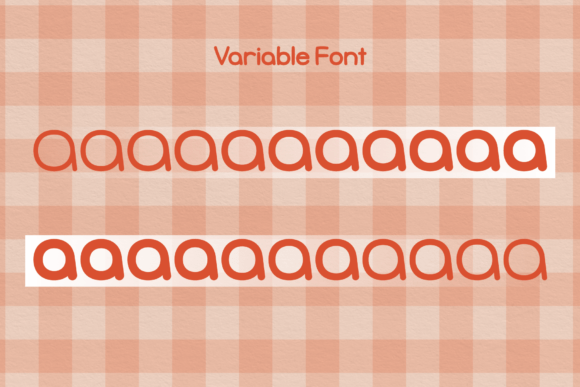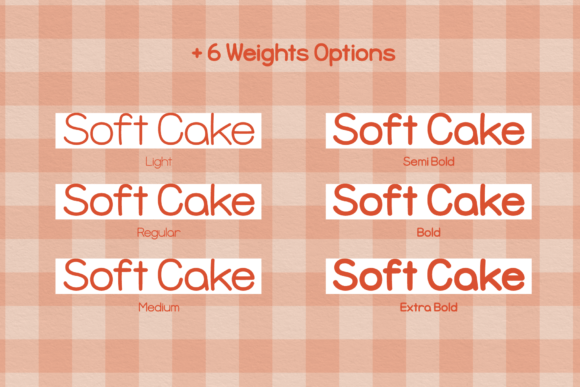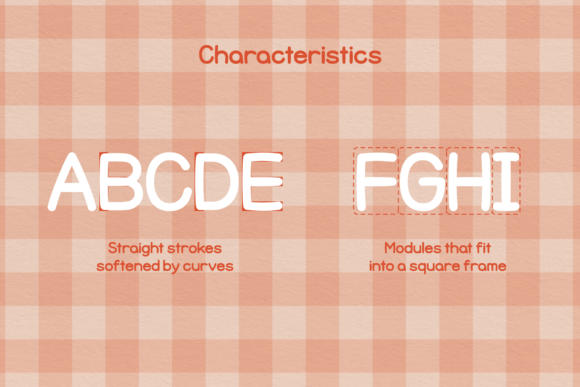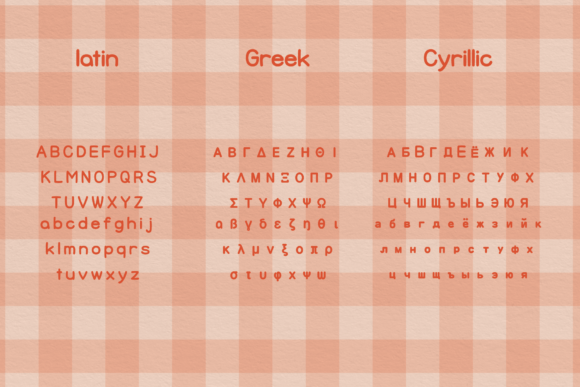
Introduction to Malrang Font
Malrang is a font that gives a round and soft feel to its tightly packed modules.
This font has a variable function, allowing users to fine-tune the thickness they want (Available only in Adobe programs.
Key Features of Malrang Font